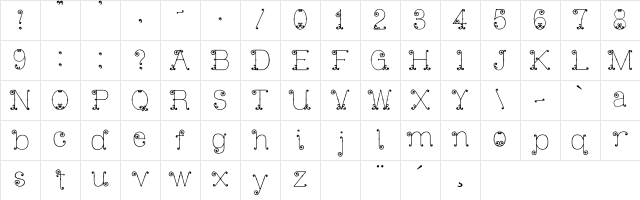
Iron Gate Regular
Design Context for Iron Gate
Iron Gate is a composed and adaptable typeface that performs quietly and consistently across a wide range of design contexts.